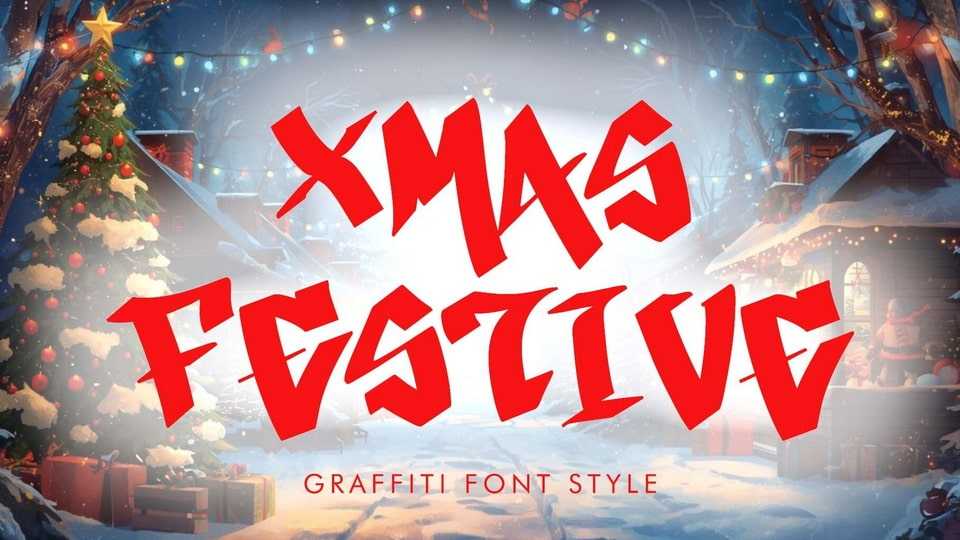
Download Xmas Festive font, a graffiti-inspired display typeface that blends the rebellious energy of street art with the joyful spirit of Christmas.